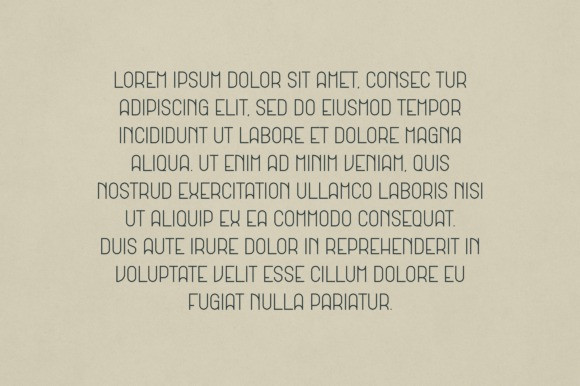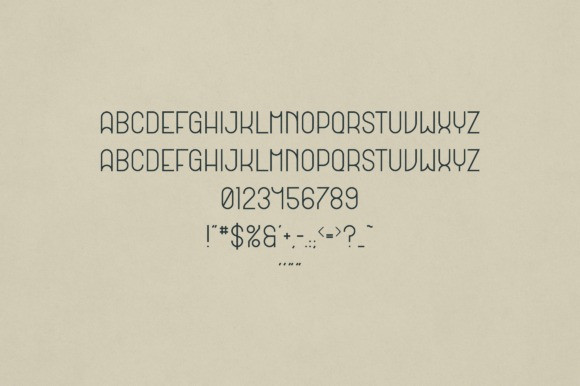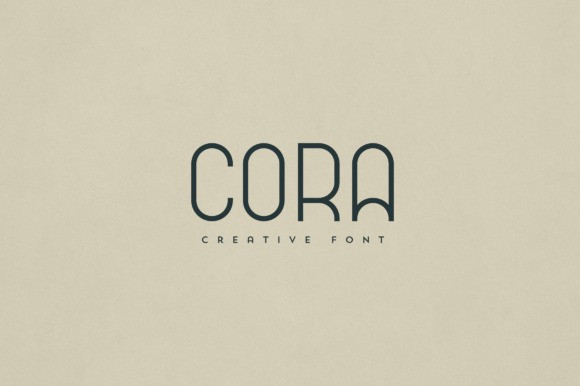
Cora Font
Cora Font is an elegant and versatile display font that will make your typography truly unique! It will enchant every logo, branding, headline, or plain text!